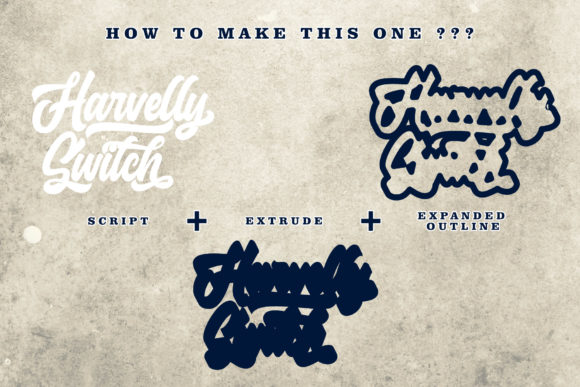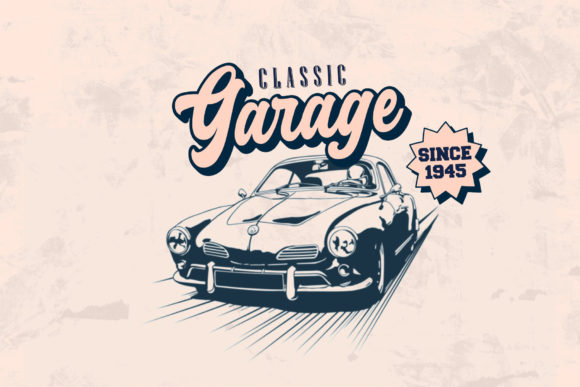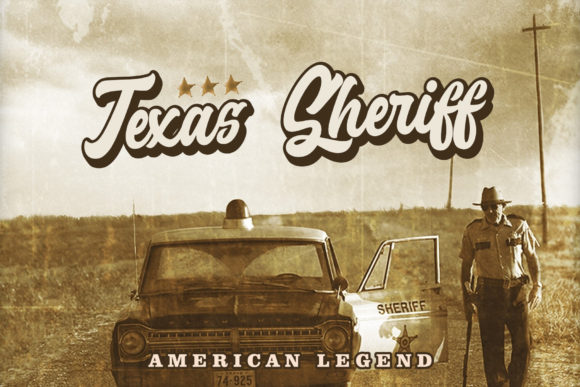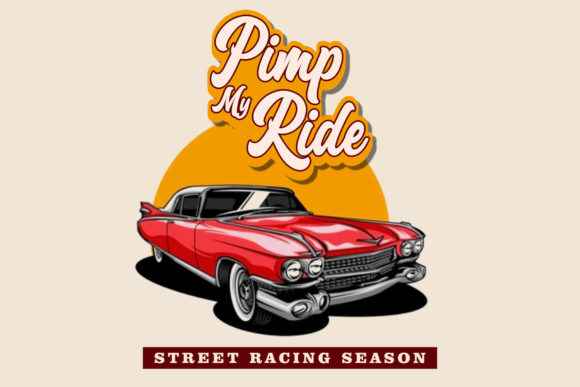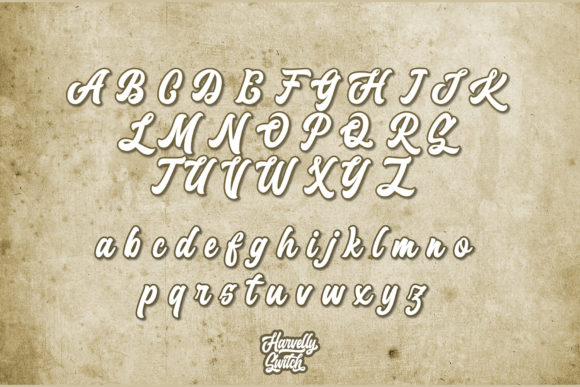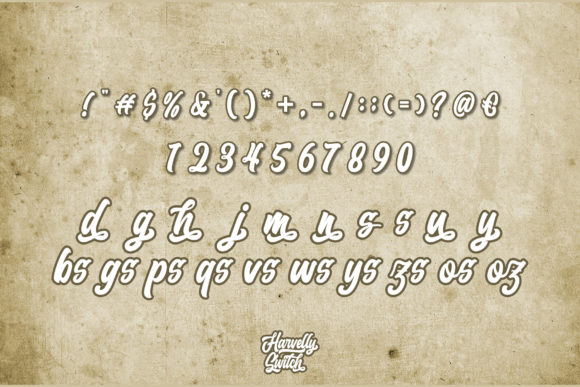
Handwritten Perfection: Unlocking the Power of Haverlly Switch Font
As a designer, have you ever found yourself scribbling down ideas in a notebook, trying to capture the essence of a project in a single, imperfect line? It’s those moments of creative chaos that can often lead to something truly special – and that’s exactly where the Haverlly Switch Font comes in.
This modern handwritten font is a masterful blend of vintage and retro styles, allowing you to create hand lettering that’s both unique and timeless. Whether you’re crafting logos, handwritten quotes, or product packaging, the Haverlly Switch Font is the perfect tool for bringing your ideas to life. With its versatility and expressiveness, it’s no wonder designers are falling in love with this powerful font.
Haverlly Switch Font Key Features
- Font Family: Haverlly Switch
- Unique Characteristics: Features a unique blend of modern and vintage elements, with a distinctive ‘switch’ effect that changes the font’s style and feel depending on the context in which it is used
- Language Support: Supports a wide range of languages, including Latin, Cyrillic, and Greek alphabets
Haverlly Switch Font Review
I recently had the chance to work with the Haverlly Switch Font, and I must say it’s a unique addition to any design project. Here are some of its notable features.
- The font’s bold, modern aesthetic makes it perfect for headlines and titles.
- The high level of customizability through its various weights and styles allows for versatility in design.
- The font’s unique character set, which includes a range of international characters, is a plus for designers working with global audiences.
- The font is highly legible, making it suitable for both digital and print projects.
- The font may not be as effective for body text due to its bold appearance, which can be tiring to read in large quantities.
- The font’s unique character set can also be a limitation, as it may not be compatible with all software or systems.
- The font’s high level of customizability can also make it overwhelming for designers who prefer a more straightforward design process.
Overall, I think the Haverlly Switch Font is a great addition to any design project, but it’s essential to use it judiciously. It’s perfect for headings and titles, but may not be the best choice for body text. With its unique character set and high level of customizability, it’s a great option for designers who want to add some flair to their projects.
Tips for Getting the Most Out of Haverlly Switch Font
1. Experiment with different font sizes and colors to create visual interest.
2. Use Haverlly Switch Font for headings and titles to create a clear hierarchy of information.
3. Pair Haverlly Switch Font with other fonts to create a unique and eye-catching design.
Haverlly Switch Font is ideal for:
1. Creating attention-grabbing headlines and titles.
2. Designing modern and trendy graphics and illustrations.
3. Adding a touch of whims
Alternatives to Haverlly Switch Font
Bebas Neue is a modern sans-serif font with a strong, bold look. It’s ideal for use in headings, titles, and other text elements where a clear, attention-grabbing font is needed. Bebas Neue has a similar width to Haverlly Switch Font, but its lines are slightly more rounded and it lacks the distinctive “switch” style of the original font.
Montserrat is a geometric sans-serif font with a sleek, urban feel. It’s well-suited for use in body text, headings, and other elements where a clean, modern look is desired. Montserrat is more condensed than Haverlly Switch Font, making it ideal for use in narrow columns or on small screens.
Lato is a clean, sans-serif font with a friendly, approachable feel. It’s ideal for use in body text, headings, and other elements where a clear, readable font is needed. Lato has a slightly more rounded look than Haverlly Switch Font, but its lines are still crisp and well-defined.